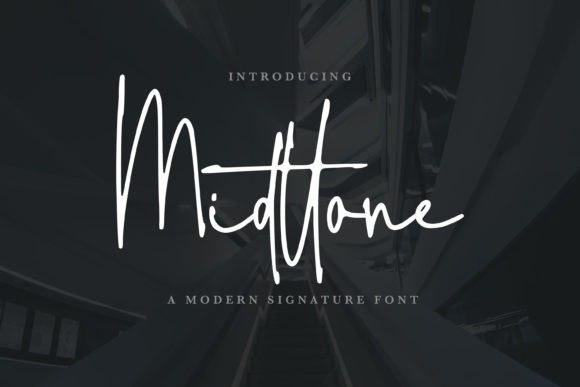
Midttone Font
Midttone is a lovely script font featuring charming, playful characters that seem to dance along the baseline. Add this font to your most creative ideas, and notice how it makes them stand out!